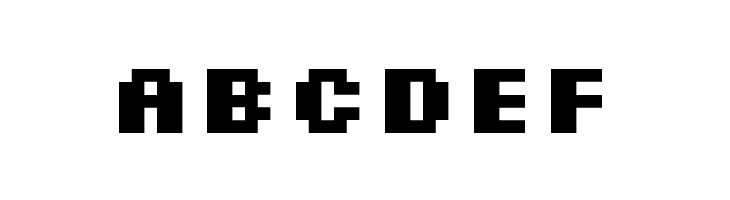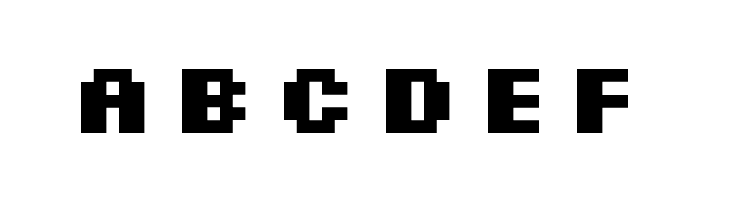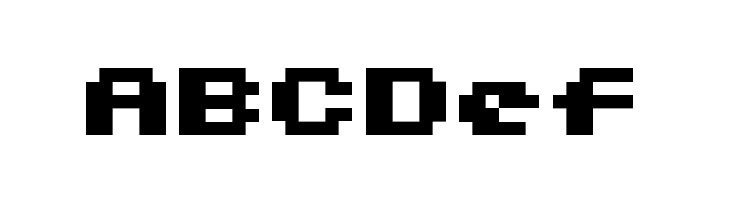
Agyx Mono Medium Font
- Font: Agyx Mono Medium
( Font by Sven Stuber - www.superlooper.de )
A pixelated, retro-style font with a digital, blocky appearance.